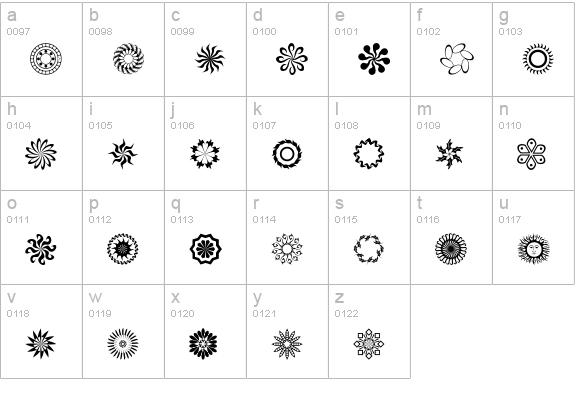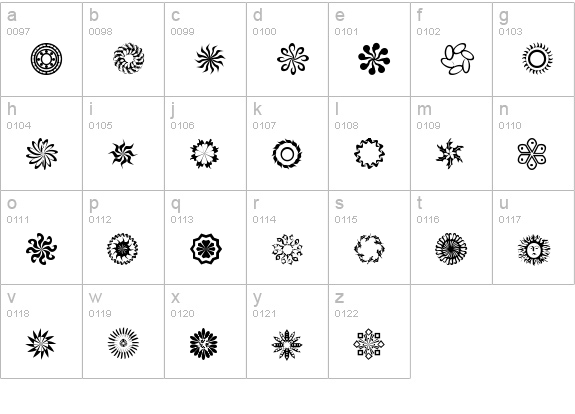
runningNcircles Font Details
runningNcircles font is a modern and stylish typeface that will add a unique touch to your projects. This font features circular shapes with a dynamic and energetic feel, making it perfect for designs that require a playful and contemporary look. Its smooth and fluid lines give a sense of movement and vitality, making it ideal for various creative projects. Best of all, runningNcircles font is available for free download at FontsMarket.com. This means you can easily access this fantastic font and use it in your designs without any cost. Whether you're working on branding, advertising, or any other design project, runningNcircles font is sure to make a statement and captivate your audience. Download it today and unleash your creativity with this eye-catching and versatile font.